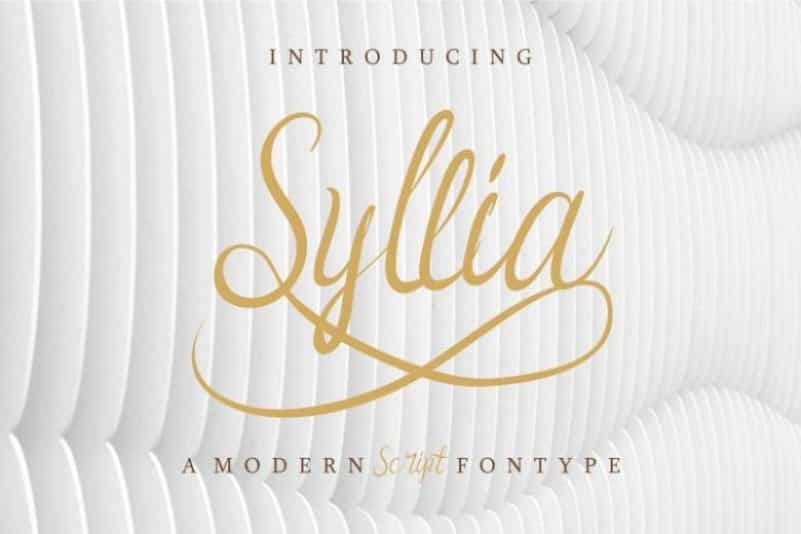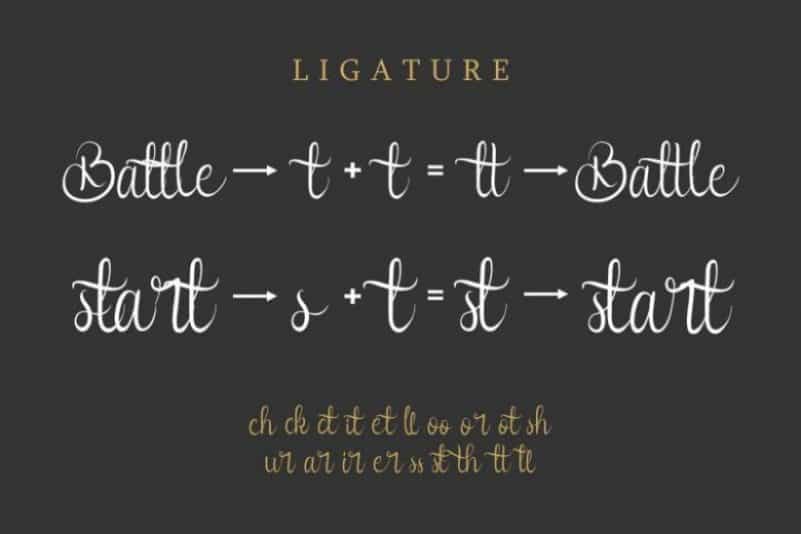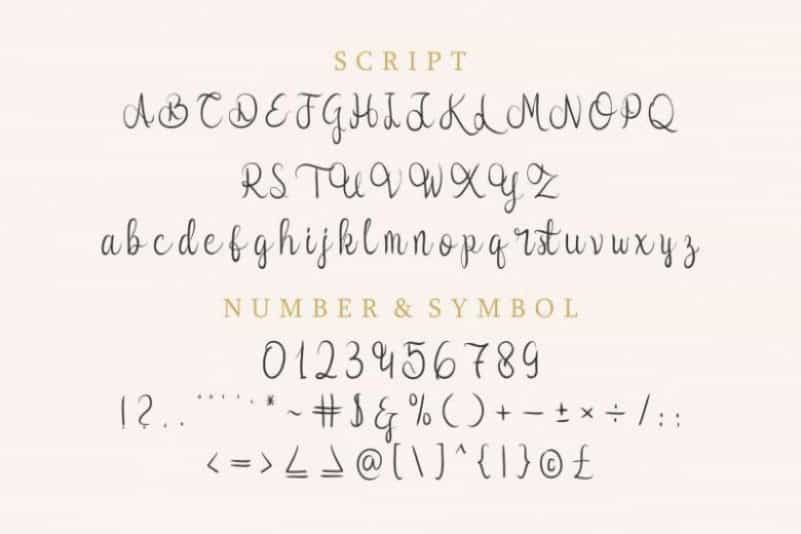
Syllia is a script font which comprises of two styles. It’s hand Calligraphy Script Font. It also supports the multilanguage angles of interpretations.